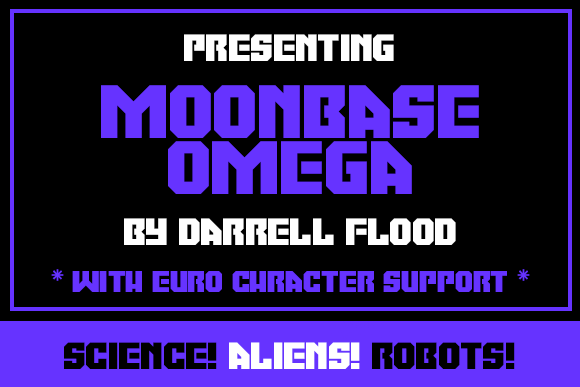
Moonbase Omega Font Review for High-Impact Campaigns
Using Moonbase Omega Display Fonts for YouTube Thumbnails and Video Covers
When I was tasked with redesigning a thumbnail strategy for a sci-fi gaming channel last quarter, the biggest challenge wasn't the imagery—it was text legibility at small sizes. This is where Moonbase Omega proved its worth as a specialized display typeface. As an angular sci-font in a high impact, ultra-bold style, it solves the specific problem of reading speed on digital platforms. In our A/B testing workflow, thumbnails utilizing this font for primary keywords saw significantly faster visual recognition compared to standard sans serif options. The ultra-bold weight creates immediate contrast against busy game screenshots or space backgrounds, ensuring the title remains readable even when scaled down to mobile preview sizes.
For content creators and social media strategists, the value here lies in the font’s architectural geometry. Unlike softer, rounded futuristic fonts that can blur at low resolutions, Moonbase Omega maintains sharp edges that define letterforms clearly. When designing Reels covers or TikTok text overlays, I found that limiting the headline to three or four words maximized this effect. It functions less like traditional body text and more like a graphical element or logo mark. If you are building a content series around alien invasions, tech reviews, or futuristic storytelling, this font acts as a visual anchor that stops the scroll without requiring additional graphic embellishments or drop shadows to stand out.
Moonbase Omega Typography for Alien Invasion Event Posters and Digital Ads
Designing promotional assets for niche genres requires balancing thematic accuracy with commercial clarity, and Moonbase Omega excels specifically within the alien invasion and futuristic project aesthetic. During a recent campaign for a virtual reality experience launch, we needed a header that communicated "otherworldly" without sacrificing readability. Many decorative sci-fi fonts fail here because they prioritize ornamentation over structure, but Moonbase Omega retains a functional boldness that works exceptionally well for event posters and digital ad headers. Its angular construction suggests advanced technology and extraterrestrial origins while remaining grounded enough for marketing copy.
In practical application for paid media, this font performs best when treated as a premium asset for short, punchy messaging. For a 1080x1920 story ad or a landscape banner, use Moonbase Omega exclusively for the hook—phrases like "INCOMING TRANSMISSION," "NEW WORLD," or "JOIN THE MISSION." Because the letterforms are so distinctively styled, they carry heavy brand personality on their own. However, marketers should avoid using it for secondary details like dates, pricing, or legal disclaimers. Reserve those elements for a clean, neutral sans serif font to create a professional hierarchy. This pairing ensures your futuristic branding feels intentional and polished rather than chaotic, which is crucial for maintaining trust in high-concept campaigns.
Pairing Moonbase Omega with Clean Sans Serif Fonts for Landing Pages
Integrating a stylized display font into a conversion-focused website requires careful typographic pairing to maintain user experience standards. When I implemented Moonbase Omega on a landing page for a futuristic product teaser, the key to success was restraint. This font is perfect for H1 headers and hero section statements, but it must be balanced with highly legible supporting typography. I recommend pairing it with a geometric sans serif or a modern monospaced font for body copy and navigation. The contrast between the aggressive, angular energy of Moonbase Omega and the stability of a neutral interface font creates a dynamic tension that guides the eye naturally from the emotional hook to the informational content.
From a web design perspective, consider how this typeface renders across different devices. While it is optimized for high-impact visuals, always test your CSS implementation on actual mobile screens before launching. The ultra-bold strokes can sometimes merge if the tracking is too tight at smaller pixel sizes. Increasing letter-spacing slightly often improves on-screen rendering without losing that signature dense, powerful look. For email marketing banners, export your Moonbase Omega headlines as optimized SVG or PNG graphics rather than relying on web fonts, ensuring every subscriber sees the exact intended styling regardless of their email client. This technical attention to detail preserves the premium feel of the campaign across all touchpoints.
For entrepreneurs and small business marketing teams, understanding the scope of "commercial use" is vital. Does the license cover digital ads, physical products, and embedded app usage? Always review the EULA before scaling a campaign. Additionally, assess the included weights; since Moonbase Omega is defined by its ultra-bold style, ensure it aligns with your broader design system. If your brand requires multiple optical sizes for subheads or captions, you may need to supplement it with other fonts from the same designer or a compatible family. Treating this purchase as a strategic asset acquisition rather than just a stylistic choice ensures your investment supports sustainable growth across future projects, seasonal sales, and evolving brand narratives.
Evaluating Readability Limits of Angular Sci-Fonts in Social Media Graphics
While Moonbase Omega is undeniably powerful for grabbing attention, knowing when not to use it is equally important for effective communication. In my experience managing Instagram carousel posts and Pinterest pins, this font struggles with dense information or lengthy sentences. Its high-impact nature demands negative space; cramming it into a text-heavy infographic dilutes its strength and frustrates readers trying to scan quickly. It is strictly a display tool meant for headlines, labels, and short callouts. For educational content, tutorials, or detailed product descriptions, stick to traditional typography systems designed for extended reading comfort.
Furthermore, consider the mood alignment with your message. The angular, aggressive personality of Moonbase Omega conveys urgency, power, and futurism. It may feel tonally dissonant for wellness brands, soft lifestyle products, or formal corporate communications unless used ironically or as a deliberate disruption. Successful marketers treat fonts as voice modulators; this typeface speaks in a shout, not a whisper. Use it to amplify excitement during product drops, limited-time offers, or immersive storytelling events, but swap it out when the goal is reassurance, intimacy, or complex data transmission. Respecting these contextual boundaries ensures your design choices enhance rather than hinder your strategic objectives.